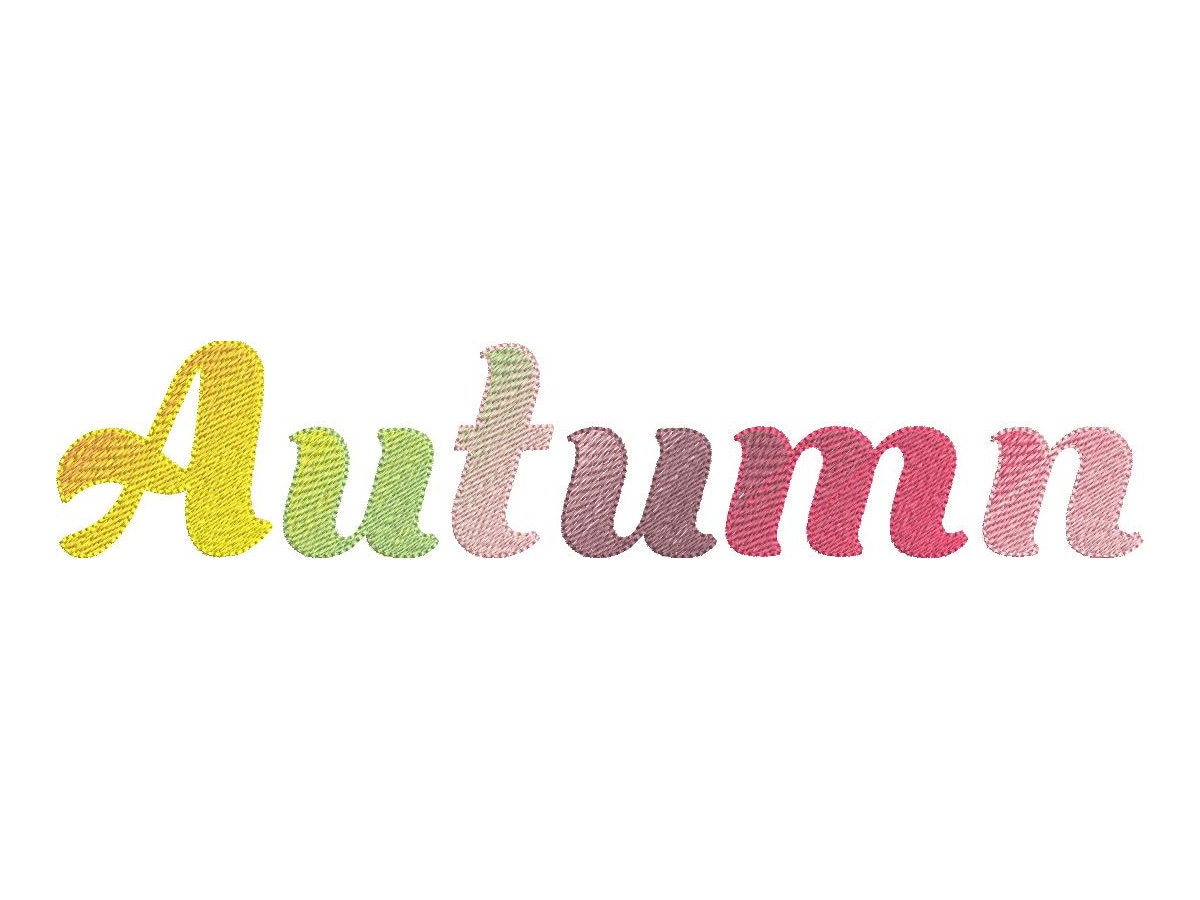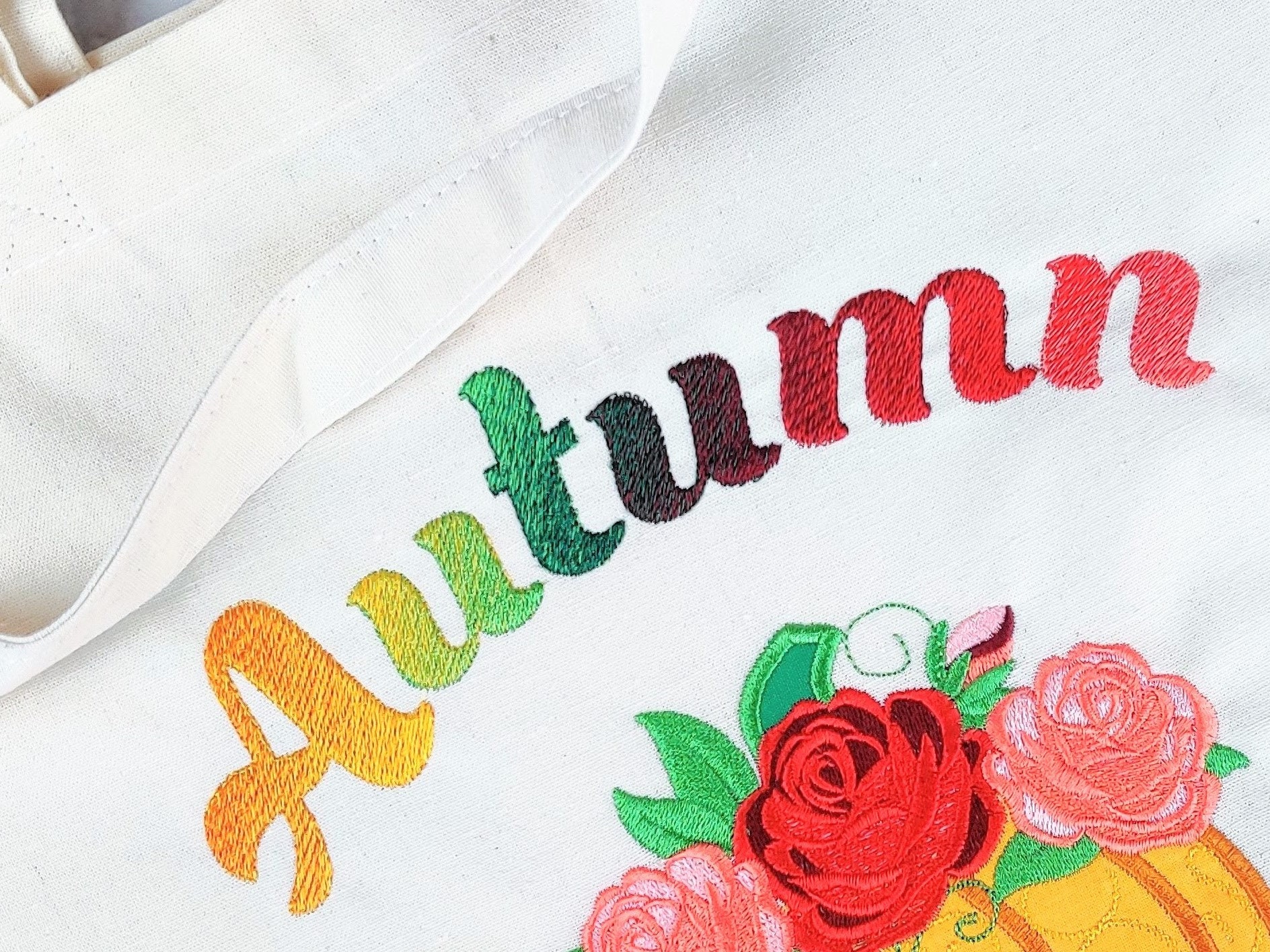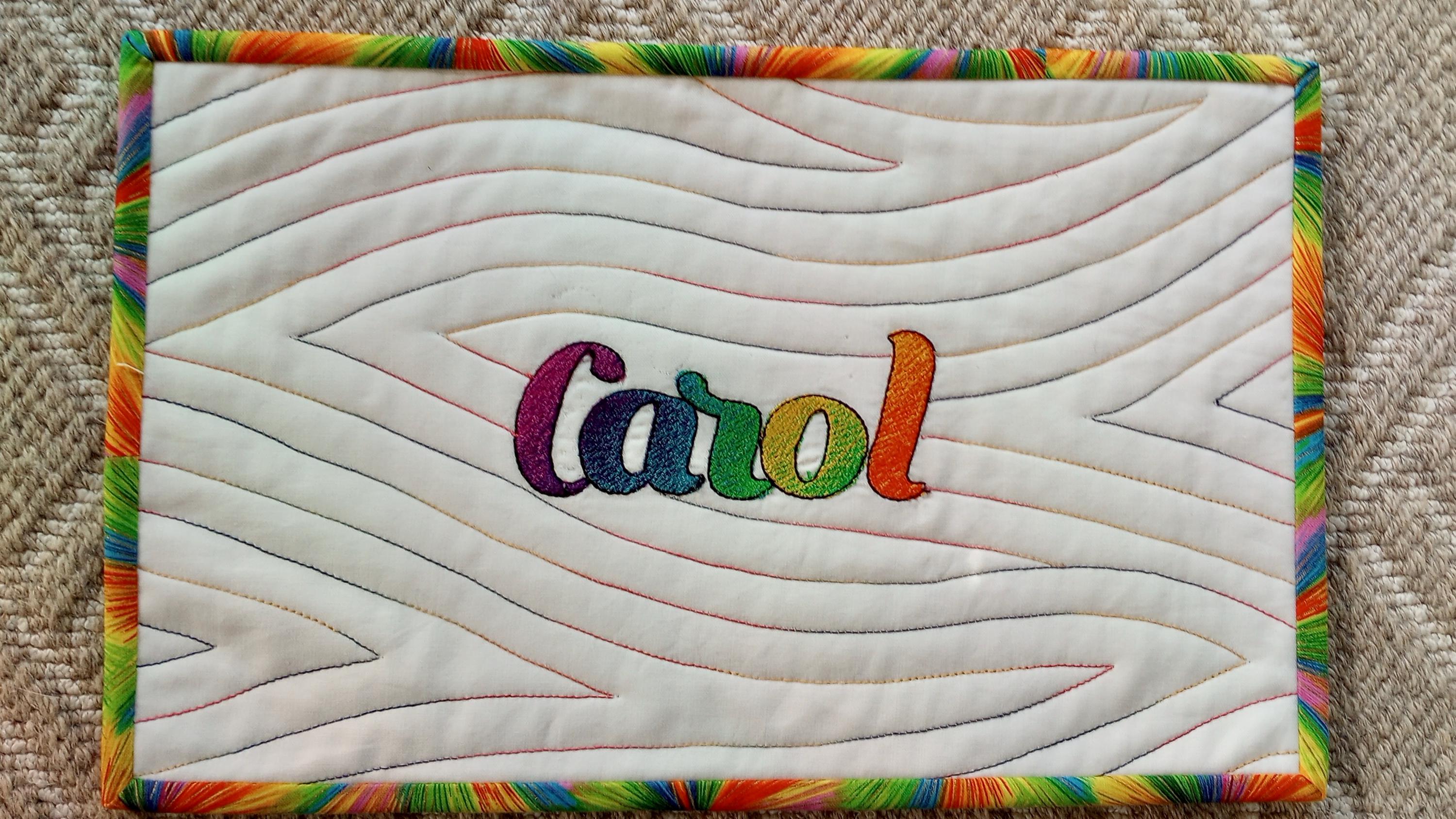
Rainbow Iridescent 2 tone gradient FONT monogram alphabet machine embroidery designs ombre script font BX included! NO special thread!
No special thread is required!
It looks incredible! For this font, regular solid color embroidery threads are used (not multi-colored).
The letters are stitched from usual threads, just used two colors to make nice iridescent effect!
No special thread required. The pattern creates this amazing effect all by itself. Iridescent comes thanks to the design, it has 2 colors. While stitching on one side of letter it stitches more with one color and on other side stitches with opposite color.
I had a tough time programming this because I am new to embroidery. Once I did, I was able to stitch it out. However, when i added the letters , I had the O upside down and the colors don't flow between the two letters like they should. I don't think anyone would notice though. Definitely line your colors up first like she suggests.
Love the colors. Always wanted to try different colors. Looks better than the virgated thread.